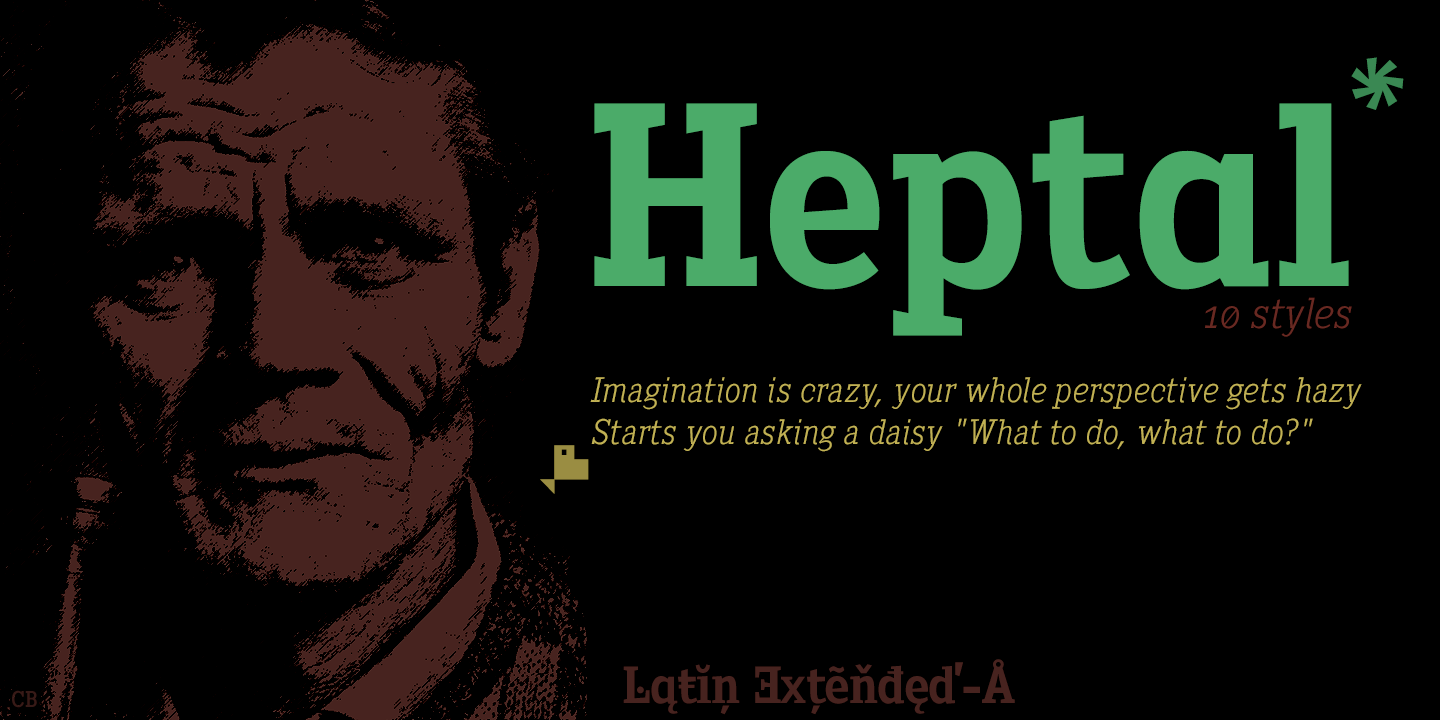
Heptal Font is perfect for tech startup branding, futuristic UI design, science fiction movie titles, digital interfaces, gaming applications, modern logo creation, tech conference materials, software packaging, innovative product launches, and cutting-edge web design. This contemporary typeface brings a forward-thinking aesthetic to any technological project.
What makes Heptal Font exciting is its sleek geometric construction that embodies the essence of modern technology and innovation. The font features angular letterforms, precise curves, and futuristic styling that creates an immediate sense of advancement and sophistication. Its clean, minimalist approach ensures excellent readability across digital platforms while maintaining a distinctive character that sets brands apart in the competitive tech landscape.
The Heptal Font family includes thin, light, regular, medium, bold, and black weights, providing comprehensive typographic flexibility for various design hierarchies. Each weight maintains the signature technological aesthetic while offering different levels of visual impact for diverse application needs.